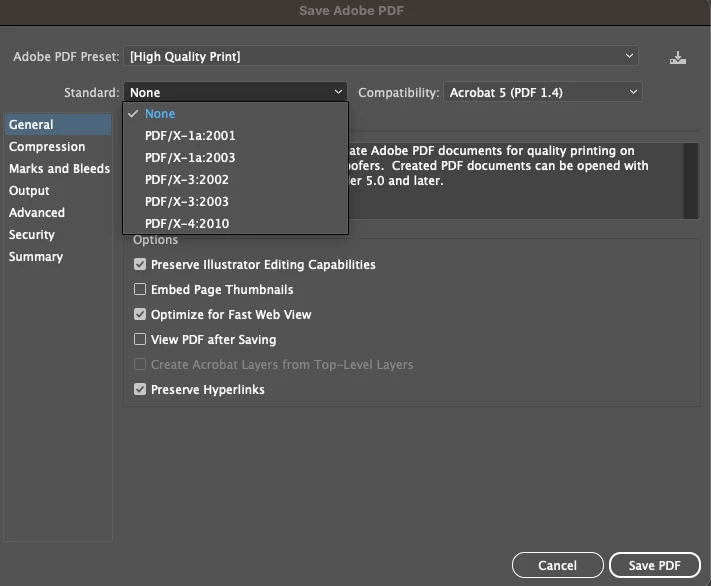
Font weight issues then converting from Pages on Mac to PDF
I've written a manuscript in Pages on Mac. The font is New times roman 12. But when I convert the manuscript to PDF the font comes out much fainter and harder to read- headache.. Anyone have a similar issue and/or a fix?
@Scott387959153sx5 double check if the fonts are embedded when you export the PDF from Pages. In Pages, go to File > Export. Under the Export Options tab, check the box for Embed Fonts. This ensures the font is included in the PDF, preventing potential font substitution issues.
Also, I would do a test print, and depending on your printer, pick the highest print resolution. On my printer, if I choose normal, the text is faint; but if I choose the fine setting, the printout is a deep black. This helps me know what to print as a draft and when to print in high quality in saving ink!
Also, test the different compatibility of the PDF.
thank you for your response however I don't have an "export options" option in Pages. There is only "Export As" and that just leads to the file types you want to export to. I've also checked settings and don't see an export options. I'm using Pages 12.2.1